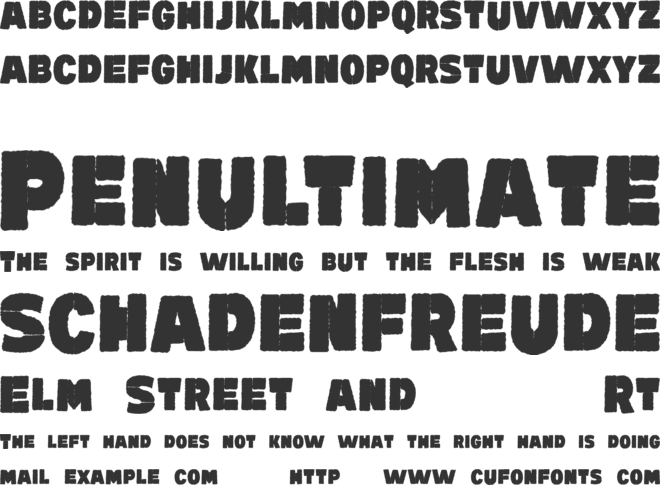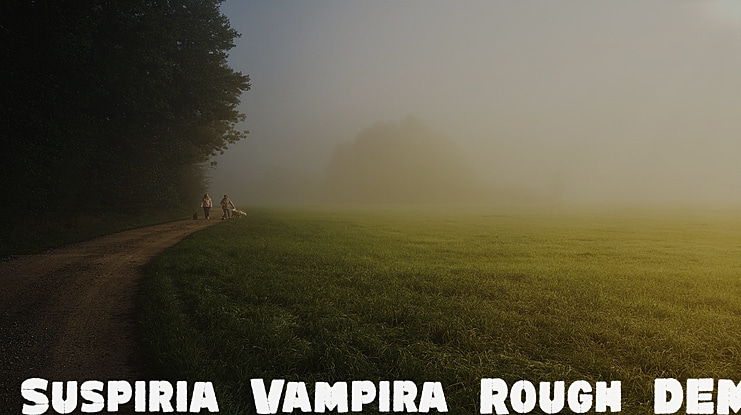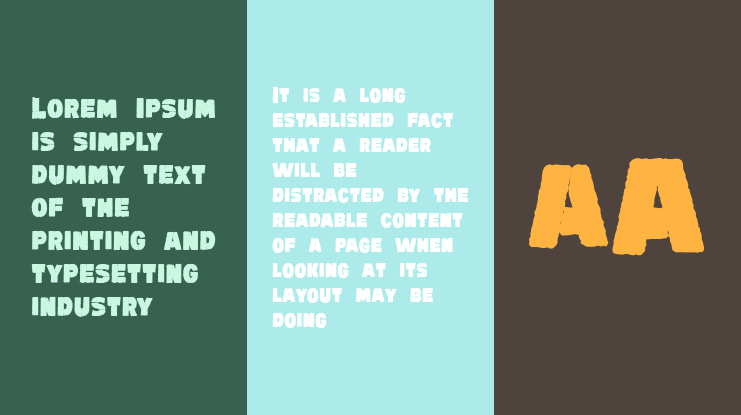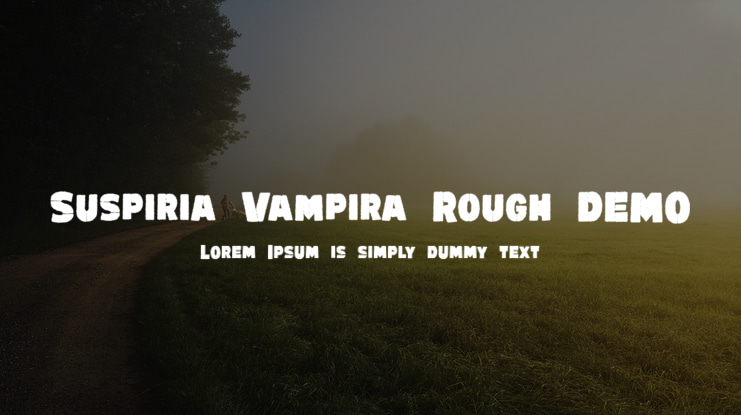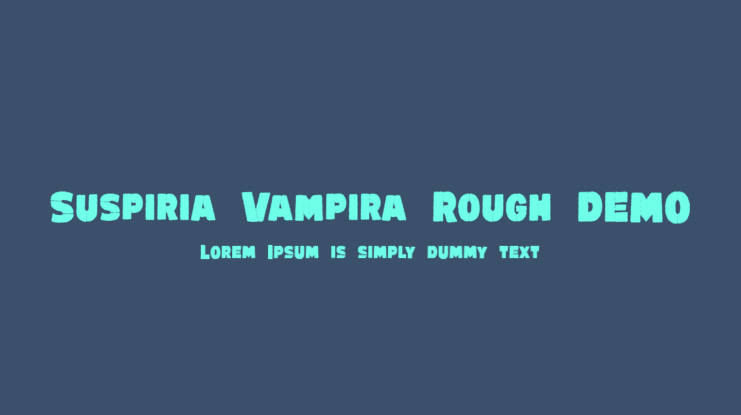
Suspiria Vampira Rough DEMO Font
Halloween is coming. Get prepared earlier with our Suspiria Vampira. A bold and bouncy fonts with 2 styles, Clean and rough. Very good for a halloween concept, but the versatility level are high in this font. It can be placed into any fun and cheerful branding or event concept. So many possibilities coming up!